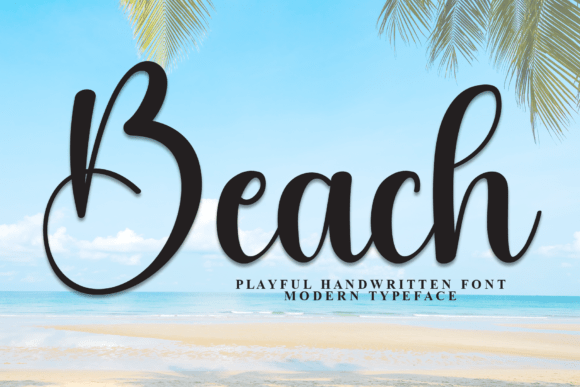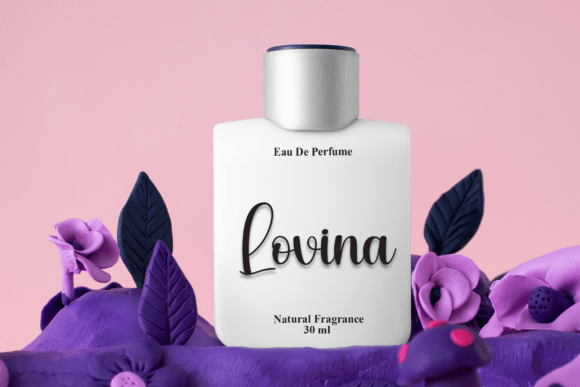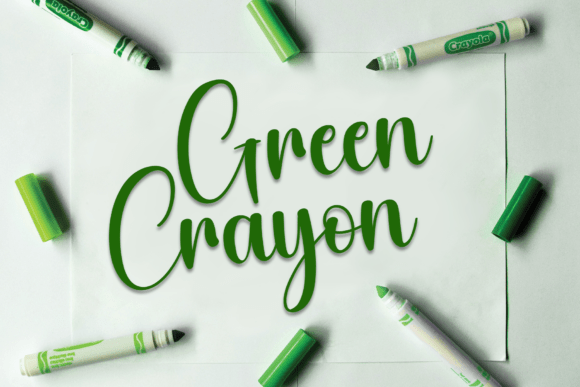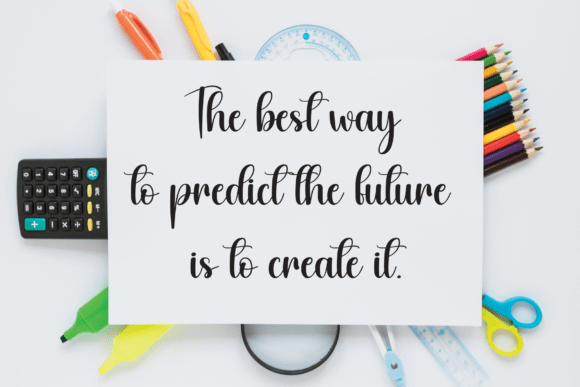
About the Beach Font
Meet Beach Font, a stunning font that brings a touch of elegance and professionalism to any design. Beach is a bold and carefree script font that embodies the spirit of summer, adventure, and relaxation. Its fun, flowing strokes make it perfect for beach-themed projects, travel branding, social media posts, and tropical invitations. Let your designs shine with Beach’s sunny and laid-back vibe.